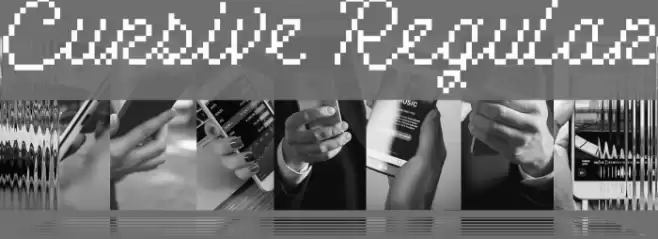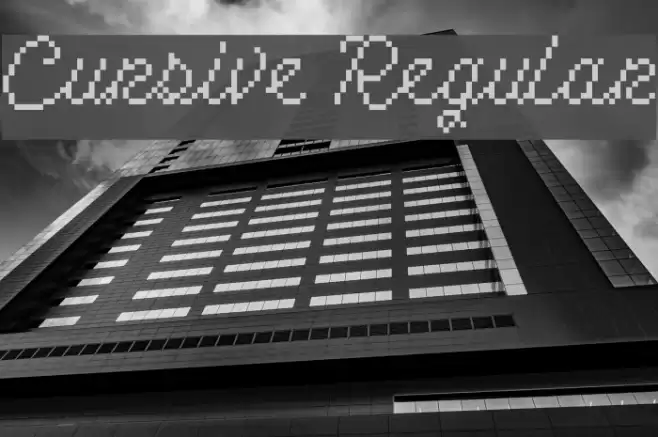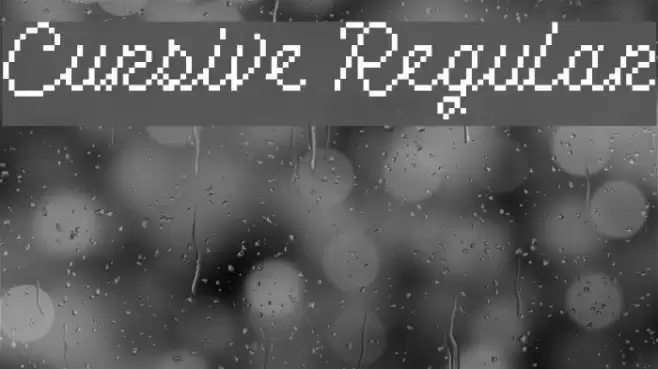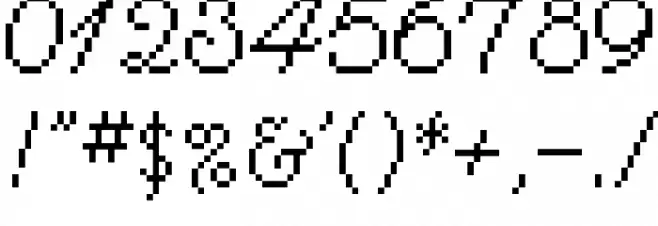
Cursive Regular Font
Cursive Regular Description
This font features a classic cursive style with a pixelated appearance, reminiscent of early digital typography. The characters are connected in a flowing manner, maintaining the traditional cursive script look while incorporating a unique, retro digital aesthetic. The uppercase letters are elegantly crafted, with smooth transitions between strokes, while the lowercase letters maintain a consistent flow. Numbers and special characters are designed to complement the overall style, ensuring readability and cohesion. The pixelated design adds a nostalgic touch, making it suitable for projects that aim to blend classic elegance with a vintage digital feel.
A pixelated cursive font blending classic script with retro digital aesthetics from Uncategorized fonts.
- Proposed Projects: Ideal for retro-themed designs, digital art projects, video game graphics, and nostalgic branding.
- Overall Style: Vintage
- Use Case: Logos, Headlines, Digital Art